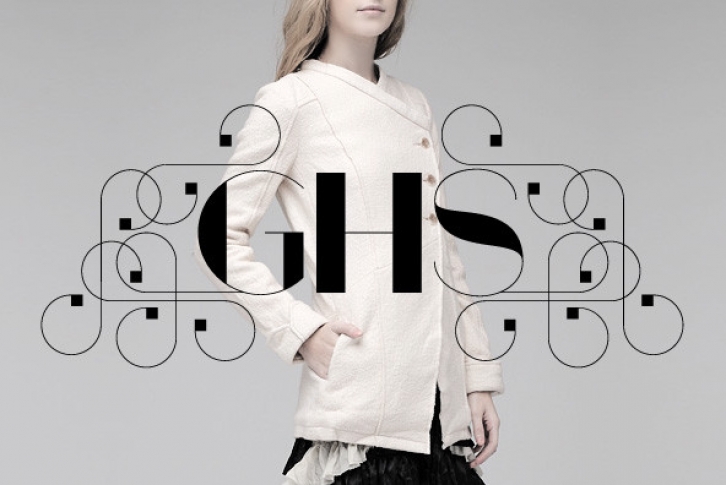
Based on the successful GHS font, GHSans is a modern and fashionable complementary sans serif with all the features of the original. It comes in 4 styles, each sold in 3-font sets containing a Key font, and two 'Layer' fonts separating the Hairline Strokes from the Stress parts. These layers can be combined to create endless variations. You can offset them for varying degrees of distress, or even treat them with different colours or process. GHSans is optimized for print at 72pt and above making it perfect for headlines and display.